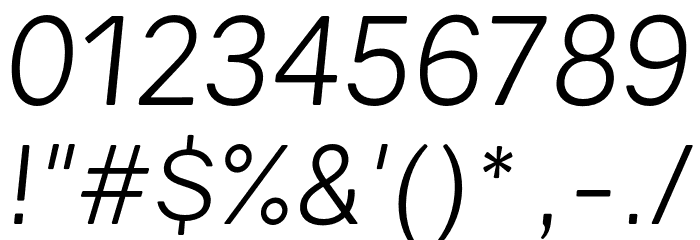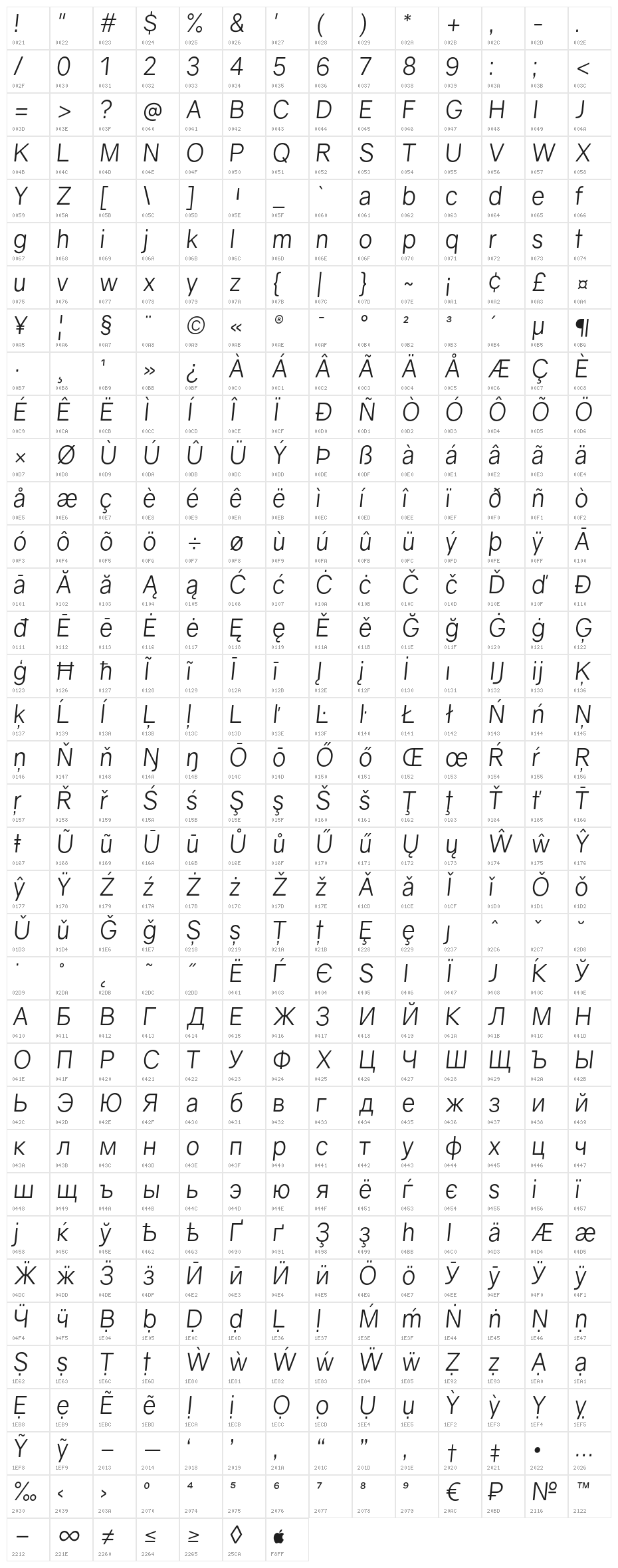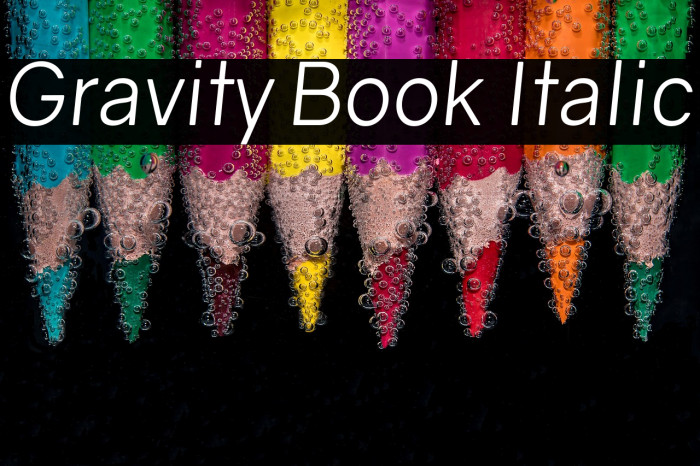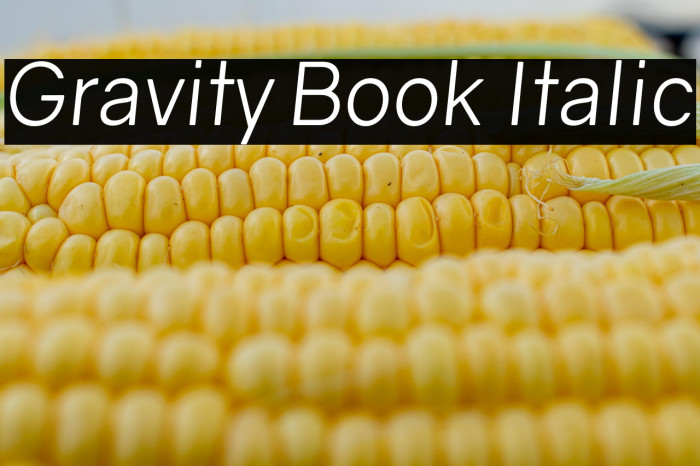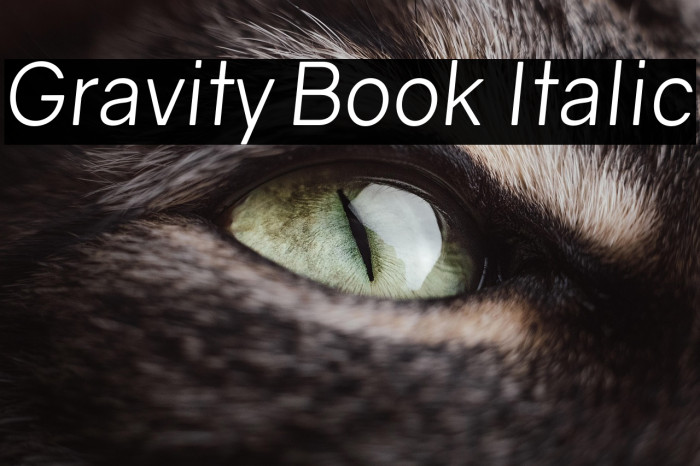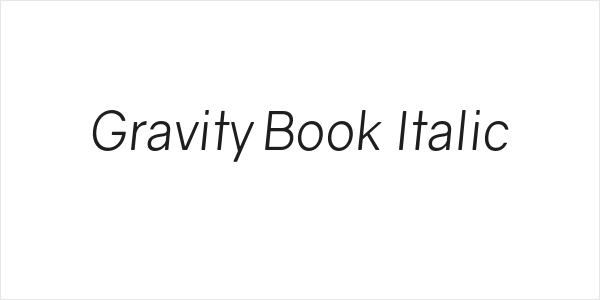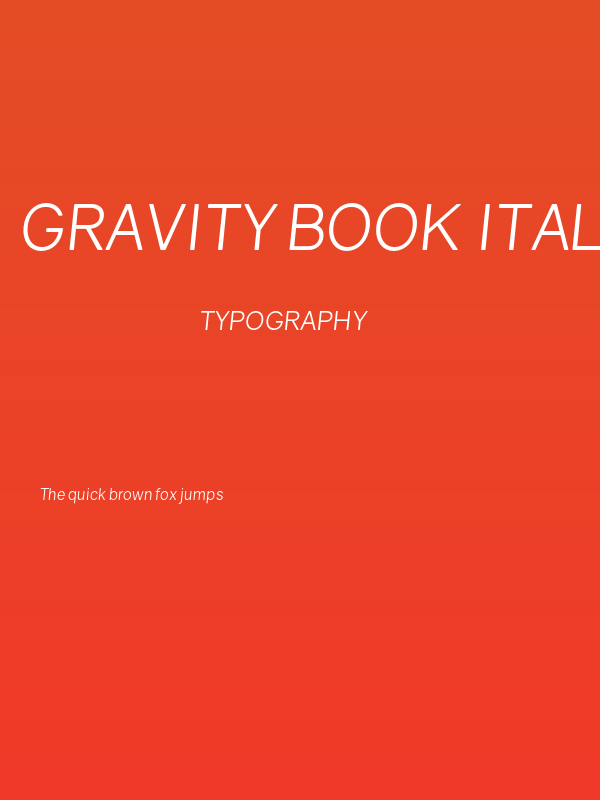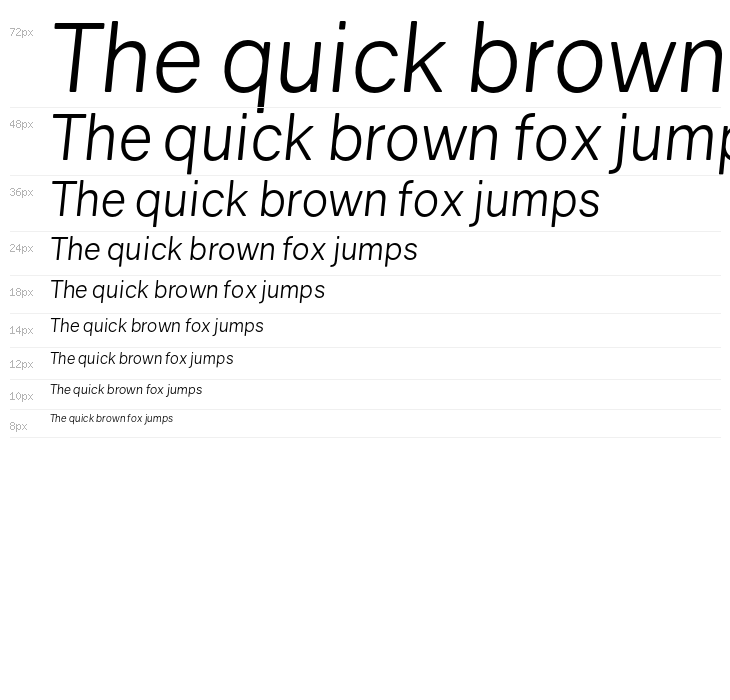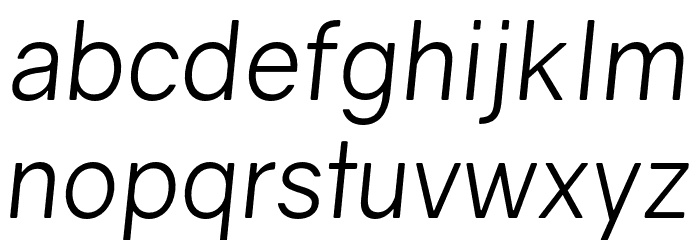
Gravity Book Italic Font
Gravity Book Italic Description
This font features a clean and modern sans-serif style with a slight italic slant, giving it a dynamic and forward-moving appearance. The characters are well-proportioned with a consistent stroke width, contributing to a harmonious and balanced look. The uppercase letters are slightly taller than the lowercase, providing a clear distinction between the two. The numerals are straightforward and align well with the overall design, ensuring readability. Special characters are designed to match the font's sleek aesthetic, making it versatile for various applications.